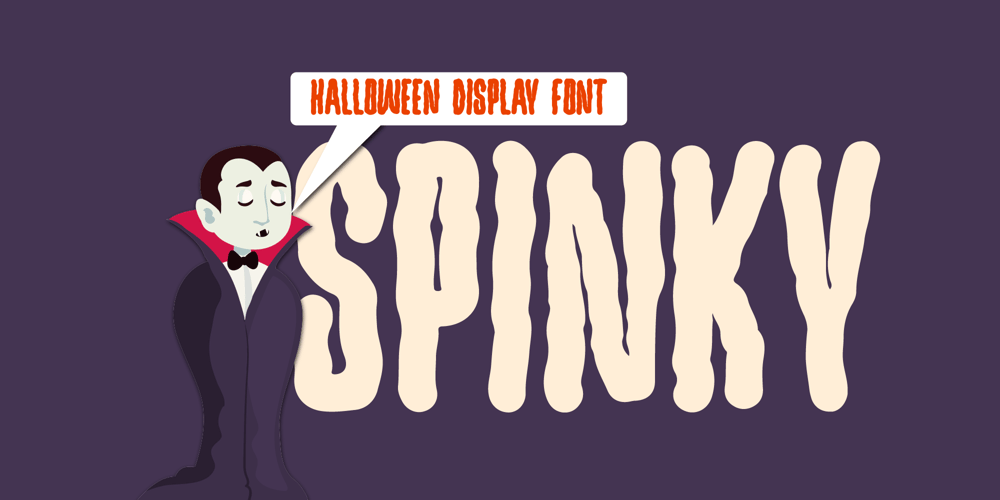
Spinky Font Family was designed by ryan creative and published by ryan creative. Spinky contains 1 styles and family package options. Spinky has a strong, inspired by the Halloween event with condensed type and curves that look like horror. Can be applied such film poster designs, book covers, quotes etc.FEATURES; Uppercase Support Foreign, Numbers and Punctuation. Works on PC and mobile Simple installation. Can be accessed in Adobe Illustrator, Adobe Photoshop. Adobe InDesign, even works in Microsoft Word. Fully accessible without additional design software. Spinky is encoded with Unicode PUA, which allows full access to all additional characters without having to design any special software. Mac users can use the Font book, and Windows users can use the Character map to view and copy any additional characters to paste into your favorite text editor/app.Thank you for visiting ๐